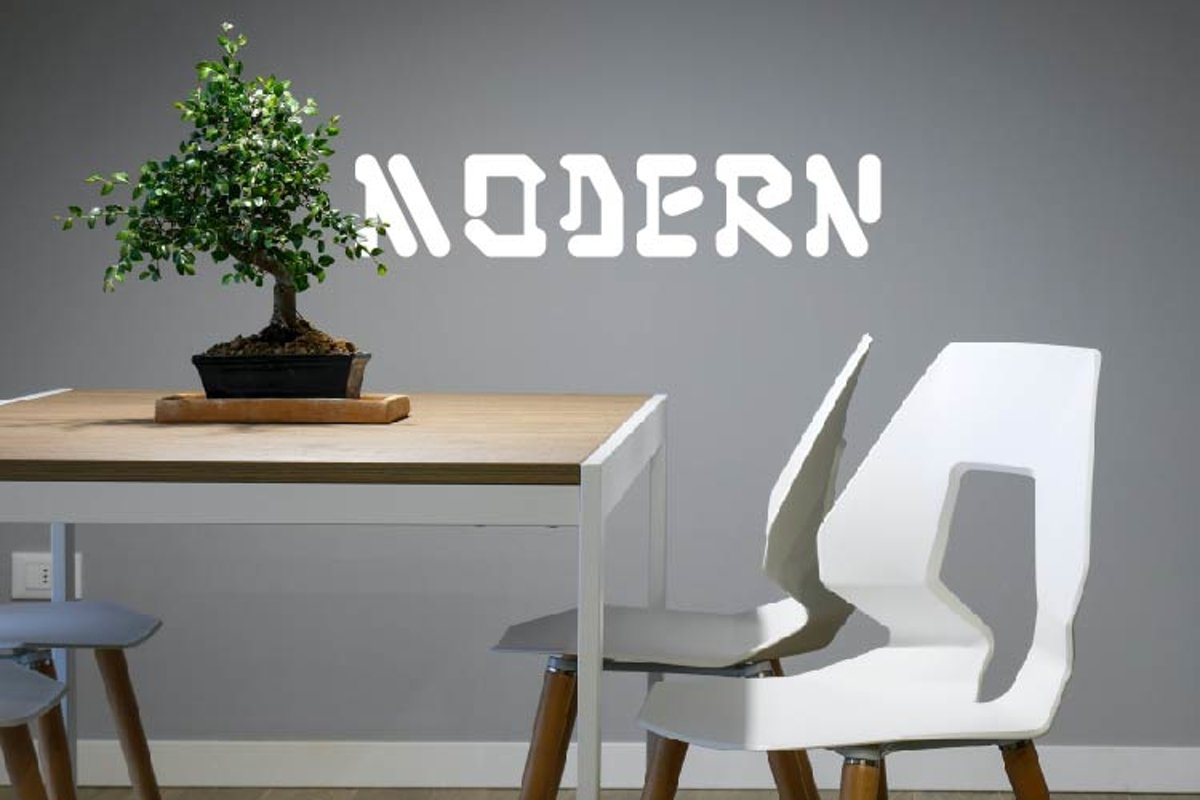
Modern
modern
Modern Future simplifies elegance into one truly outstanding display font. This font is the perfect fit for all of your logos, branding, social media, and crafty DIY projects.